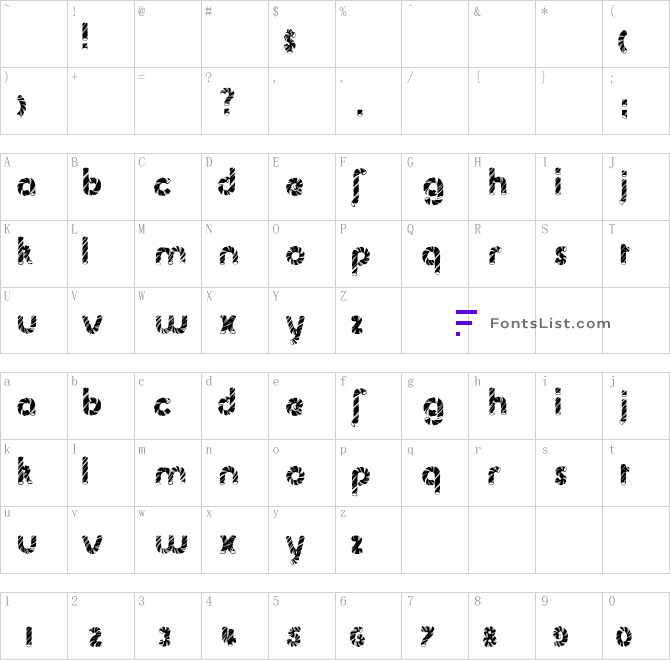
- Font Name:Candylicious
Candylicious.ttf is a very beautiful artistic font, Candylicious.ttf is widely used in the design and printing of various books and pictures,Candylicious.ttf has a strong visual impact,Candylicious.ttf is a commonly used font in newspapers, magazines and books, and is used in posters, e-commerce Poster design, store design, logo design, font design and other fields.Candylicious.